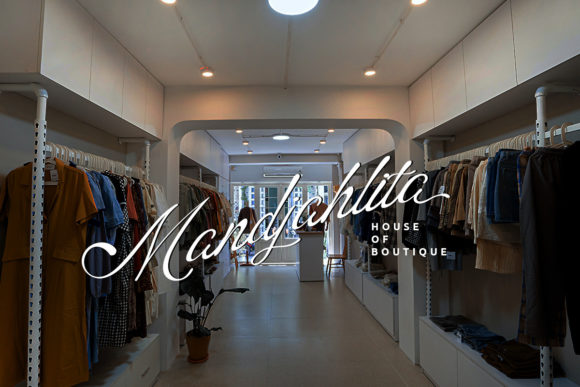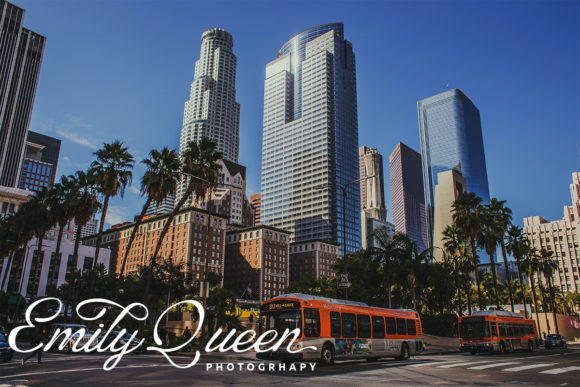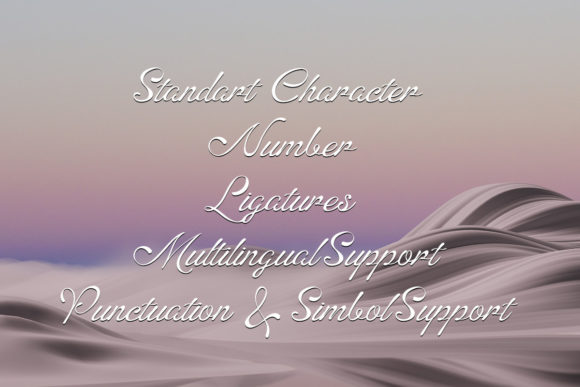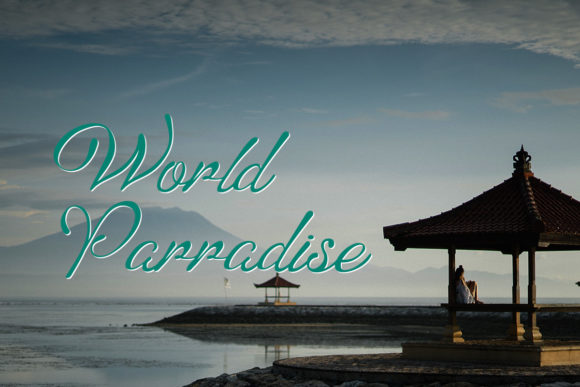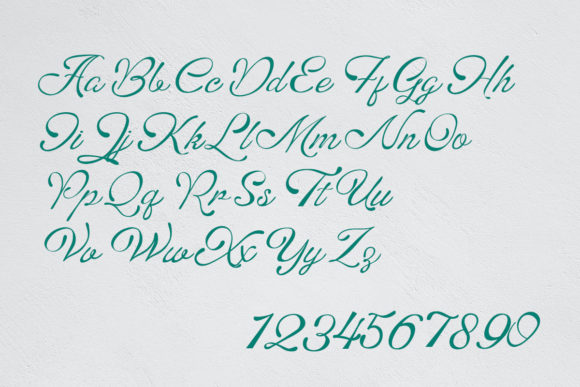
Introduction to Milliston Font
Imagine you’re sitting at your desk, surrounded by papers, glue, and scissors, trying to create the perfect wedding invitation for your best friend’s big day. You’ve got the perfect message, but the font just isn’t doing it justice. That’s when you stumble upon the perfect design resource – the Milliston Font.
As a designer, you know how crucial it is to have the right tools at your disposal. The Milliston Font is one of those hidden gems that can elevate any creative project from ordinary to extraordinary. With its elegant and charming style, it’s perfect for adding a touch of sophistication to your designs. Whether you’re working on a logo, business card, or greeting card, the Milliston Font is sure to impress.
And the best part? It’s PUA encoded, making it easy to access all the glyphs and swashes you need to create high-quality designs. Plus, it’s available for free download, so you can get creative without breaking the bank. Whether you’re a seasoned pro or just starting out, the Milliston Font is a valuable addition to your design arsenal.
Key Features of Milliston Font
- High-quality, professional design resource ideal for creative projects
- Transparent background, making it easy to integrate into various design elements
- Perfect for use in digital and print media, including logos, graphics, and text-based designs
- Comes in a range of sizes, with optimal resolution at 300 DPI for high-quality printing
- Unique, modern design aesthetic that sets it apart from other fonts in its class
Honest Review: Milliston Font
As a designer, I’m always on the lookout for high-quality design resources to elevate my creative projects. The Milliston Font is one such resource that caught my attention recently. Here’s my honest review.
- ✨ Unique and modern design aesthetic that sets it apart from other fonts.
- ✨ High-quality vector graphics that ensure crisp and clear rendering, even at large sizes.
- ✨ Transparent background option, making it easy to integrate with any design project.
- ⚠️ Limited language support, which may be a concern for designers working with non-English clients.
Overall, I’m impressed with the Milliston Font’s unique design and high-quality rendering. While it may have some limitations, it’s a great resource for designers working on creative projects that require a modern and stylish touch. If you’re looking for a free design resource, the Milliston Font is definitely worth checking out.
Milliston Font
The Milliston Font is a versatile and high-quality design resource that can elevate your creative projects to the next level. With its clean and modern aesthetic, this font is perfect for designers, artists, and anyone looking to add a touch of sophistication to their work.
Tips for Getting the Most Out of Milliston Font
To get the most out of the Milliston Font, be sure to use it in conjunction with other high-quality design elements. Experiment with different font sizes, colors, and arrangements to find the look that works best for your project. The transparent background feature of this font makes it ideal for creating custom overlays and graphics.
Common Use Cases for Milliston Font
The Milliston Font is perfect for a wide range of creative projects, including:
- Graphics and illustrations
- Typography and text-based designs